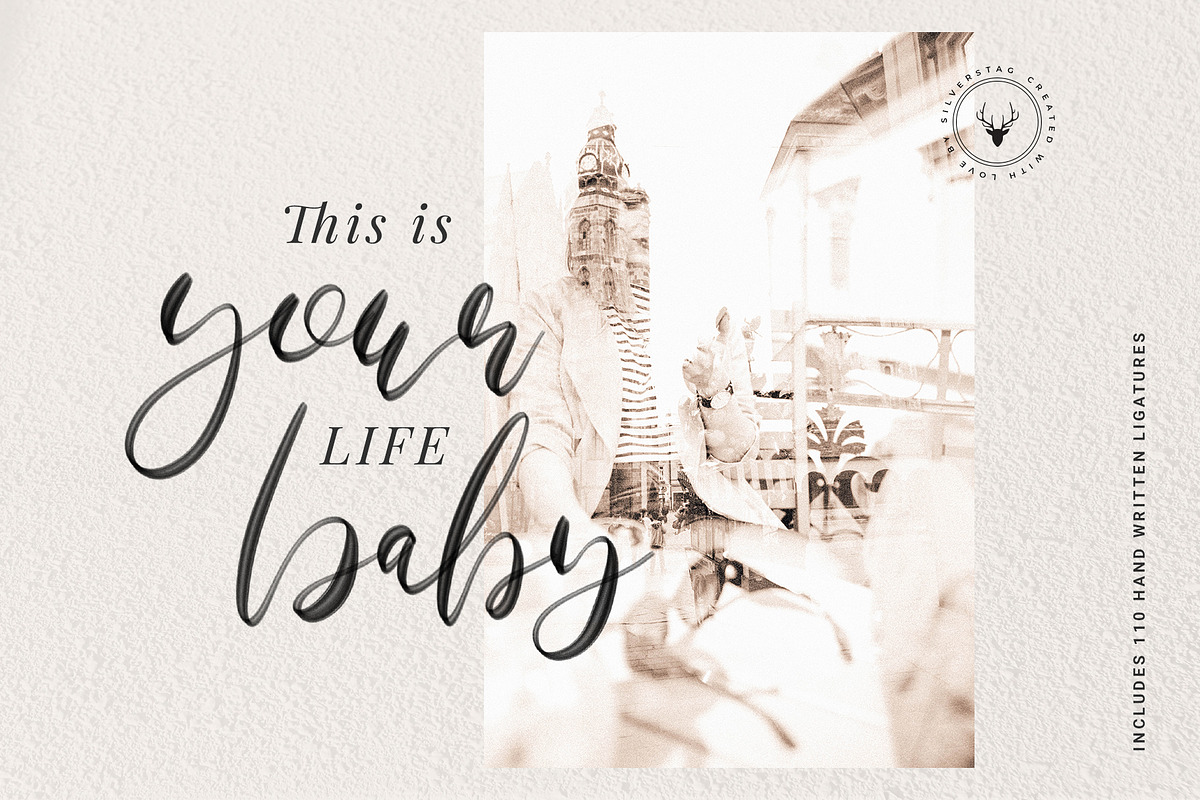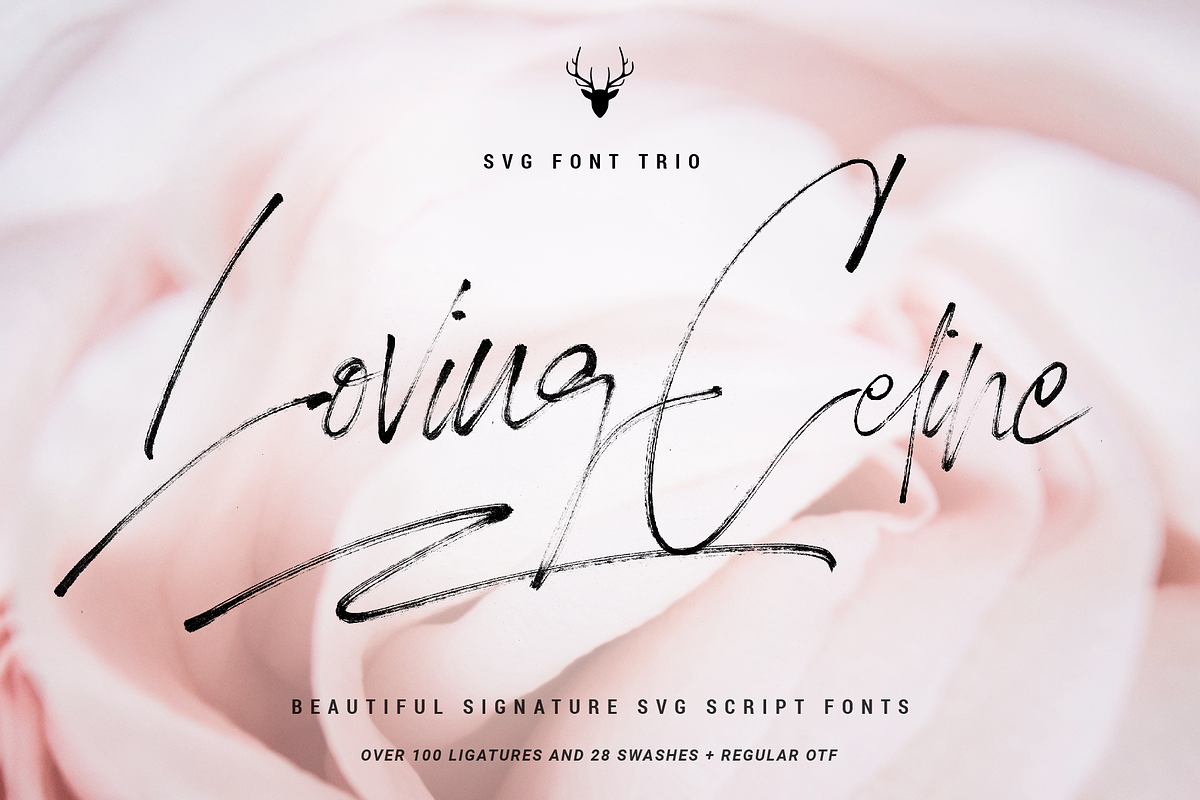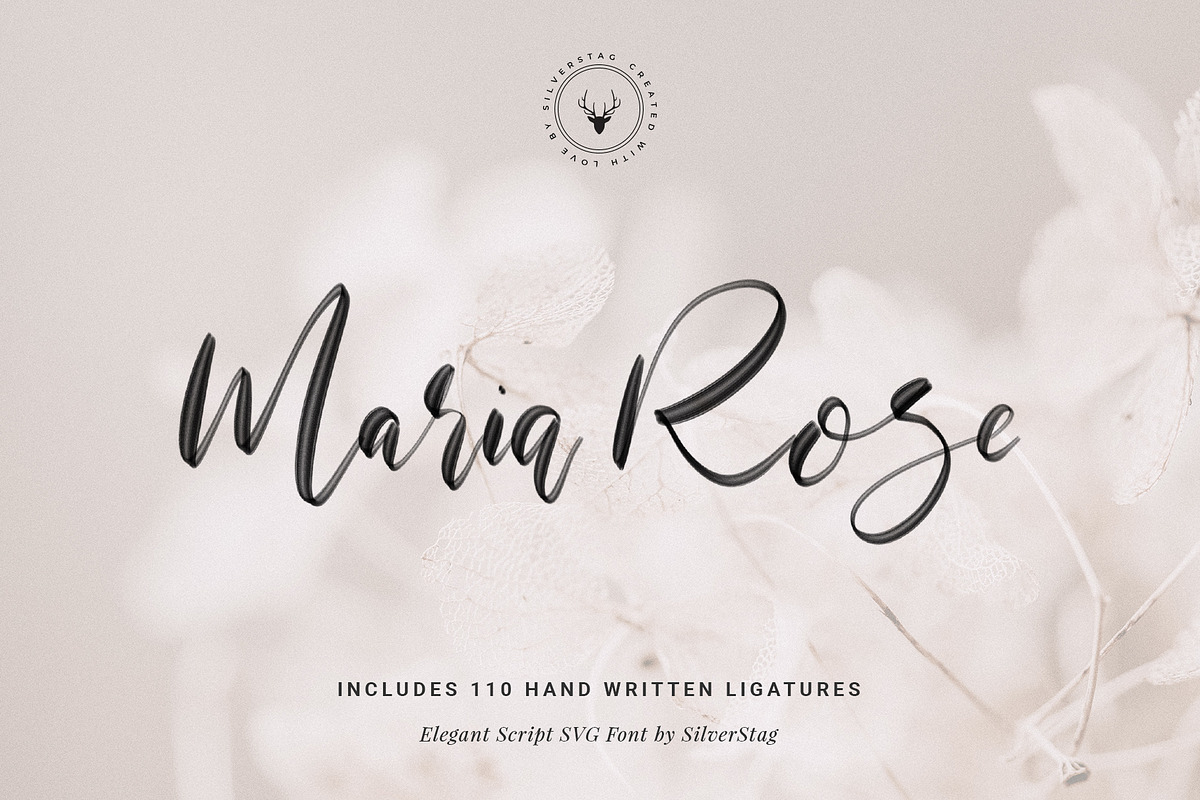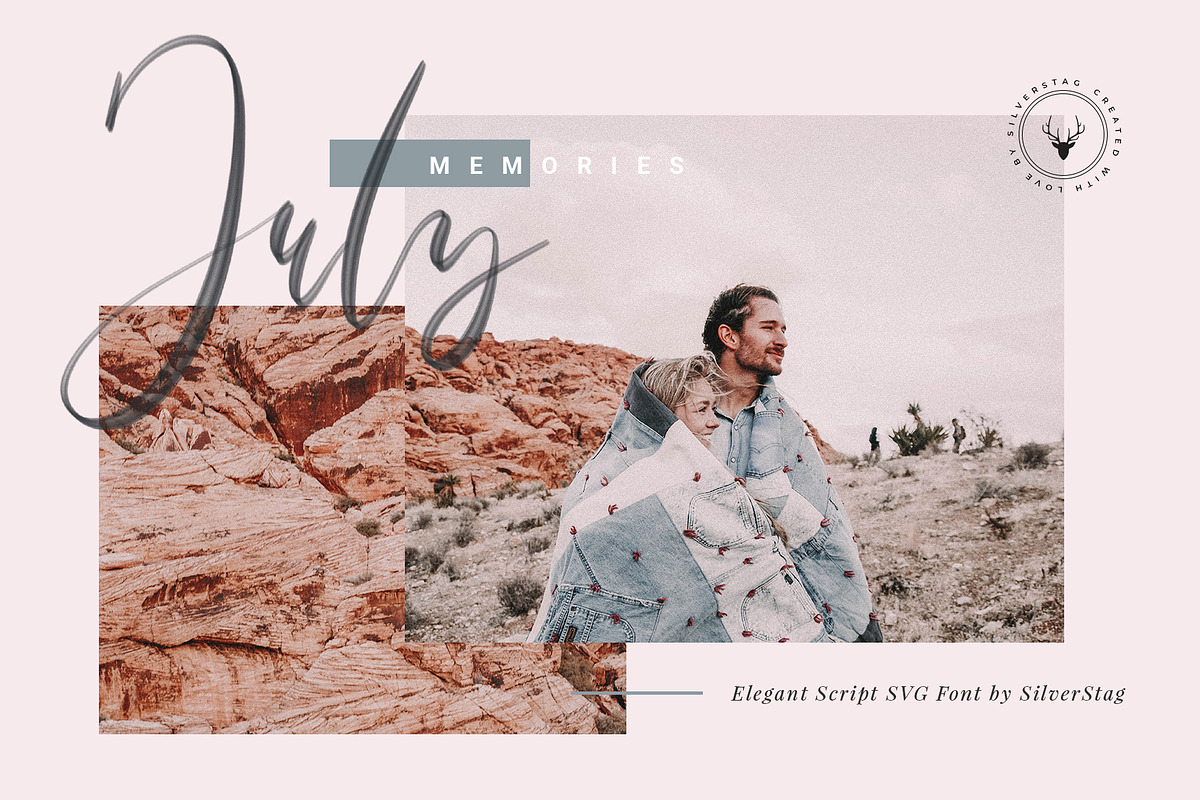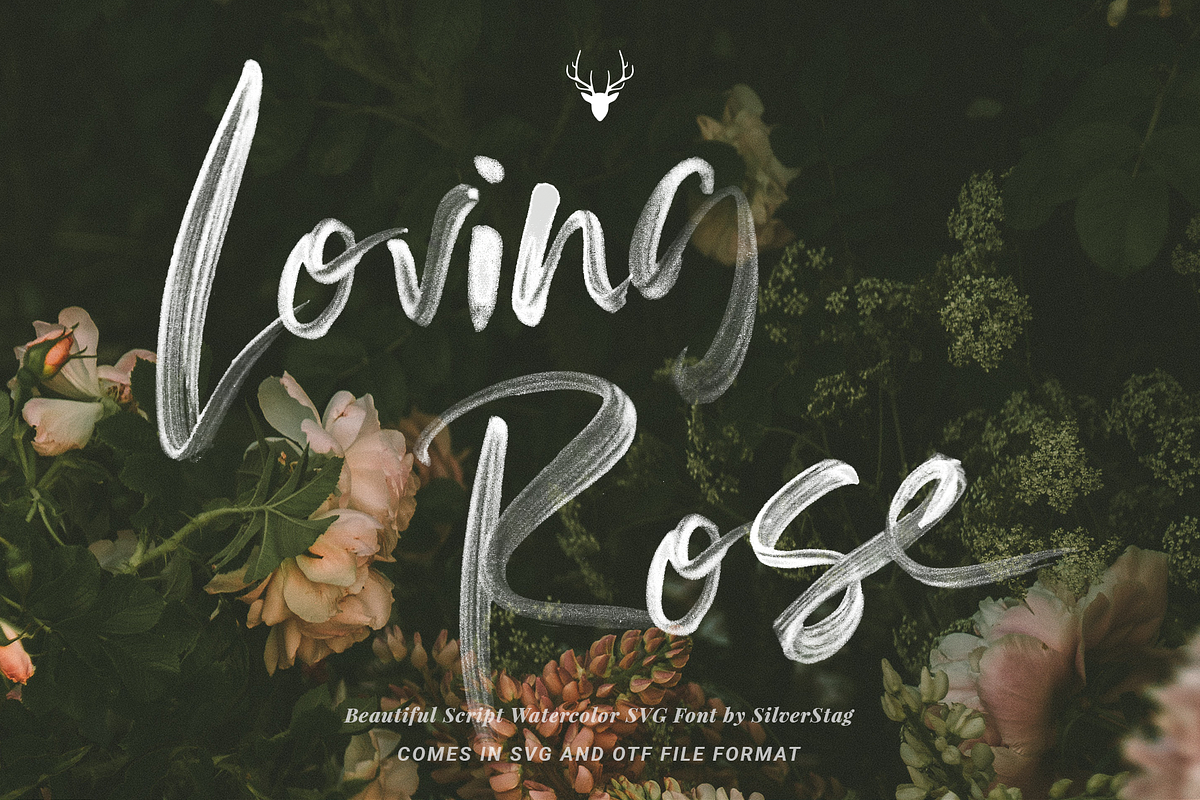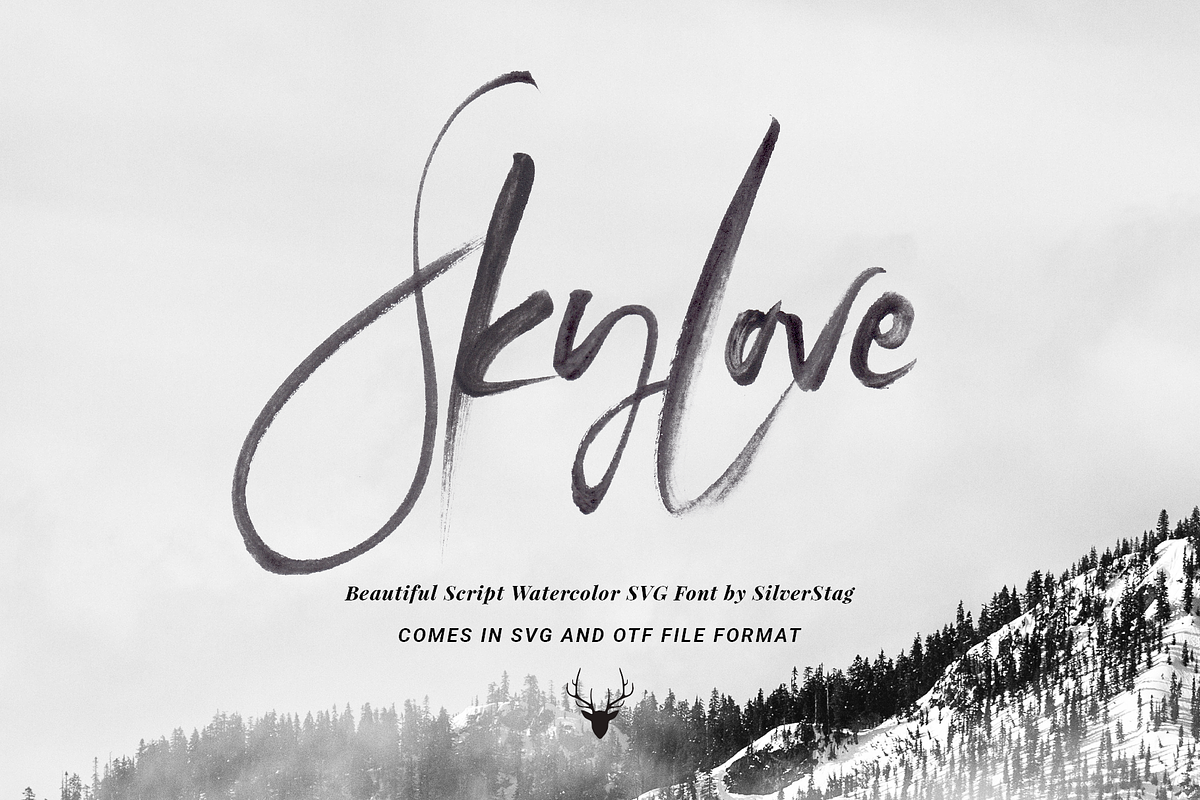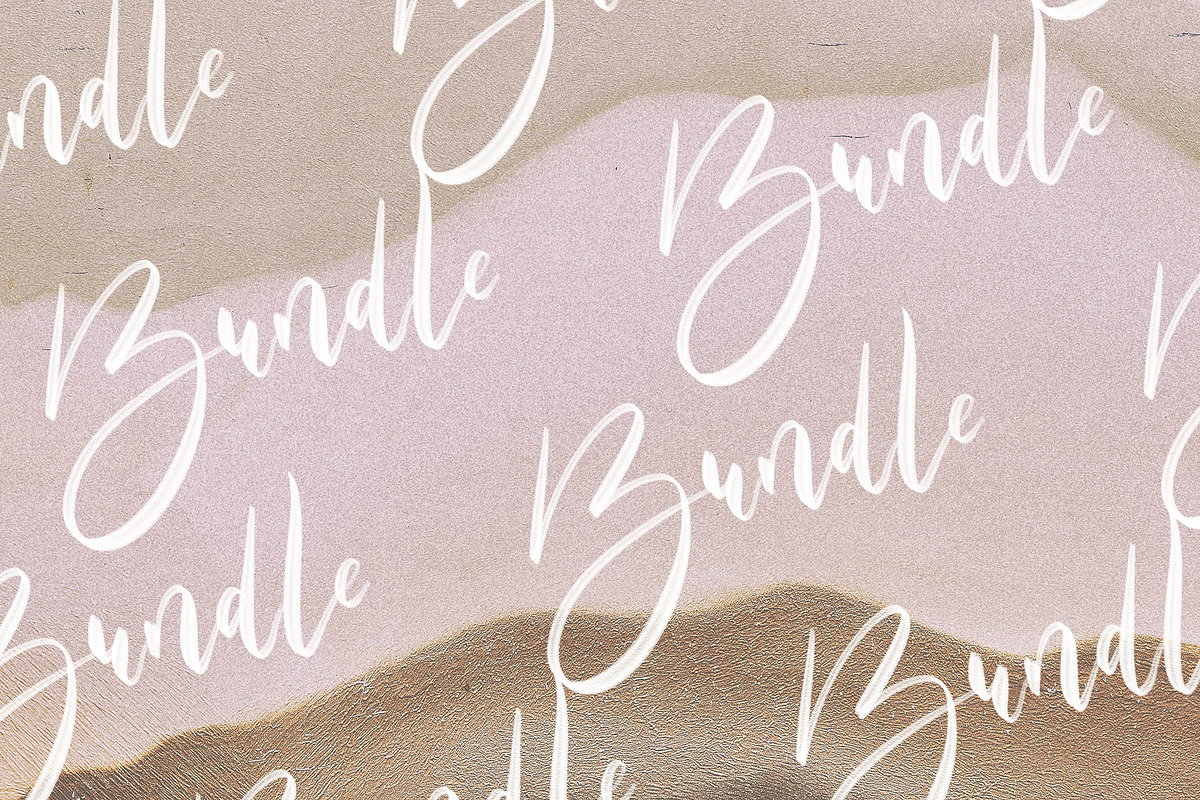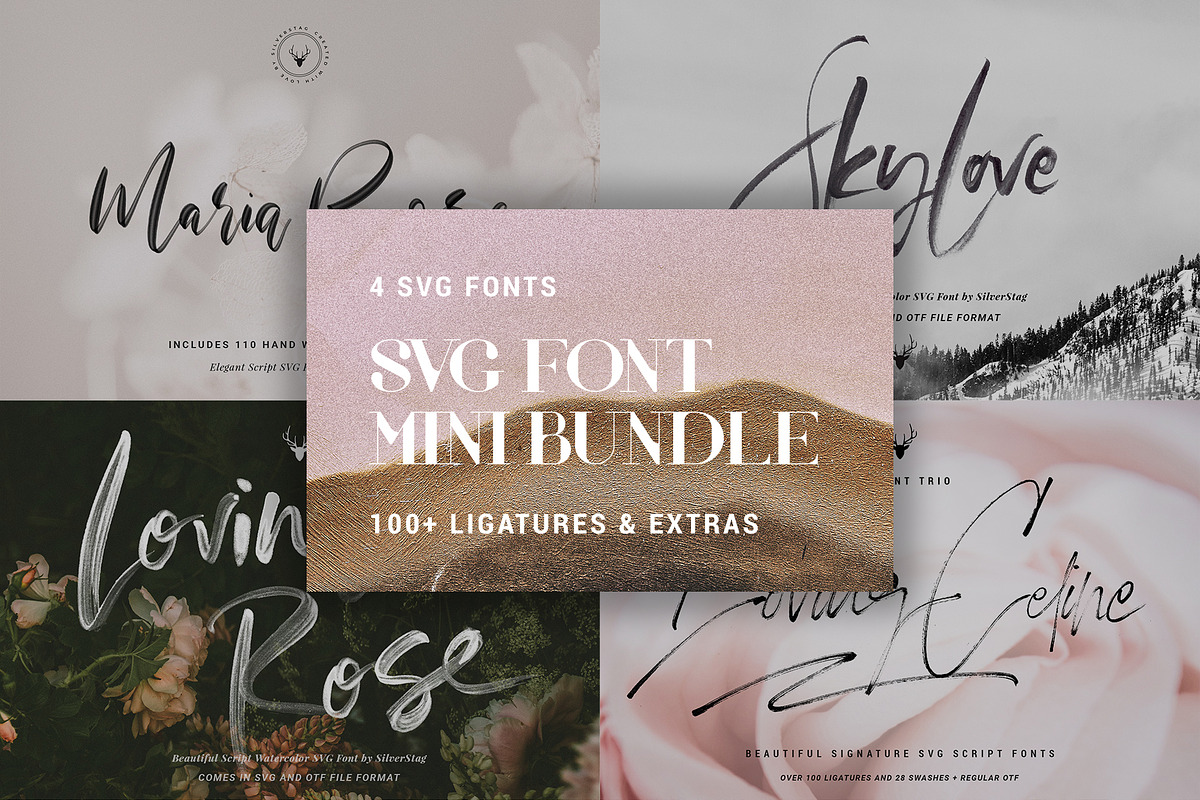
I am super excited to publish my first SVG Font Bundle. After publishing 4 different script SVG fonts I have decided to bundle them up so you can save 50% by purchasing them all together.
THIS BUNDLE INCLUDES:
Maria Rose Elegant Script SVG Font -
Loving Rose SVG Watercolor Font -
SkyLove SVG Watercolor Font -
LovingCeline SVG Script Brush Font -
Maria Rose SVG Font Includes:
Loving Rose SVG Font Includes:
1. Loving Rose SVG Watercolor Font with Ligatures and Splashes included
2. Loving Rose Alternate SVG Watercolor Font with original and alternate letters
Splash Ligatures are available simply by typing out bracket pairs with your ligatures setting active: (), ()(), [], [][], {}, {}{}, ()[], [](), (){}
SkyLove SVG Watercolor Font Includes:
Loving Celine Signature SVG Font Trio Includes:
1. Loving Celine SVG Font with full language support, ligatures and swashes
2. Loving Celine Two SVG Font with full language support, ligatures and swashes
3. Loving Celine Three SVG Font with full language support, ligatures and swashes
Loving Rose PSD Files contains the following characters: AÀÁÂÃÄÅCÇDÐEÈÉÊËIÌÍÎÏNÑOØÒÓÔÕÖUÙÜÚÛWẂŴẄẀYÝŸỲŸÆŒßÞþ in uppercase and lowercase and supports Danish, English, French, German, German (Switzerland), Norwegian Bokmål, Portuguese, Spanish, Swedish, Swiss German.